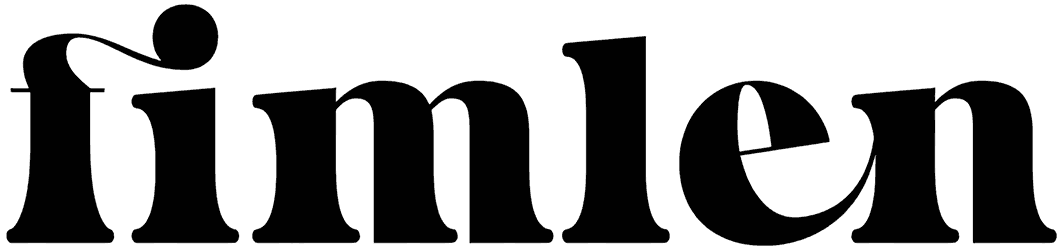
Fimlen Font
There are many ideas that you can portray with classic and popular words like this item and show off your creativity. As a retro font, Fimlen consists of bulky and unique letters that can act as a matchable style for any subject. Display your coming designs from logotypes to Instagram posts with this serif font, and be impressive.